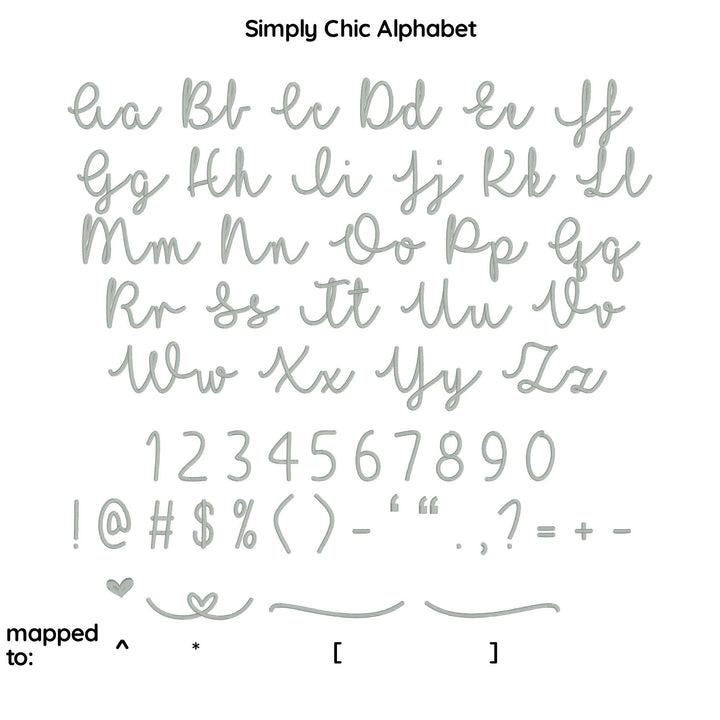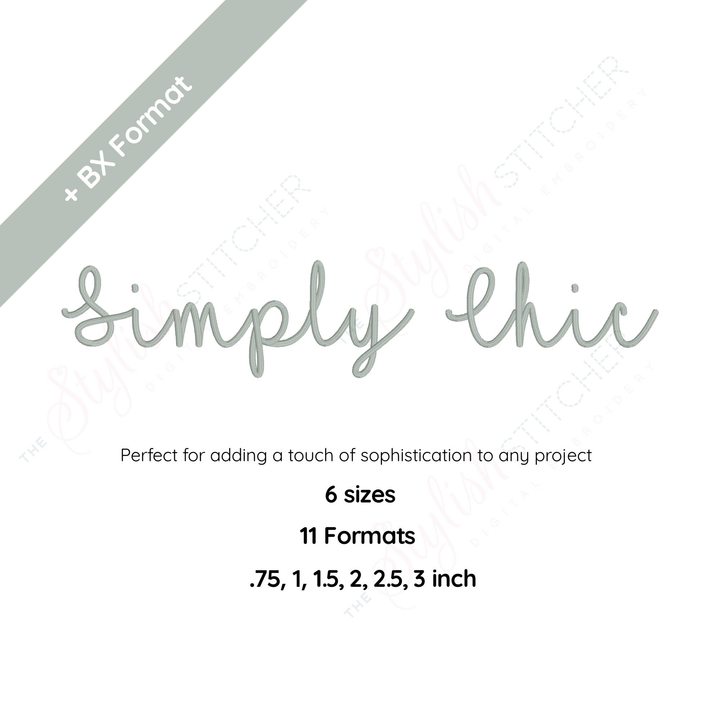
Photograph of Simply Chic embroidery font
Photograph of Simply Chic embroidery font alphabet
Simply Chic Digital Font
Simply Chic Digital Font:
Looking to add a touch of elegance and sophistication to your embroidery designs? Look no further than Simply Chic embroidery script font. With its graceful and flowing lines, this font is perfect for adding a touch of glamour and style to your projects. Whether you're creating personalized gifts, embellishing clothing, or adding a special touch to your home decor, Simply Chic will elevate your embroidery to the next level. This machine embroidery font is easy to use and produces beautiful results, making it a must-have for any embroidery enthusiast looking to add a touch of timeless beauty to their work.